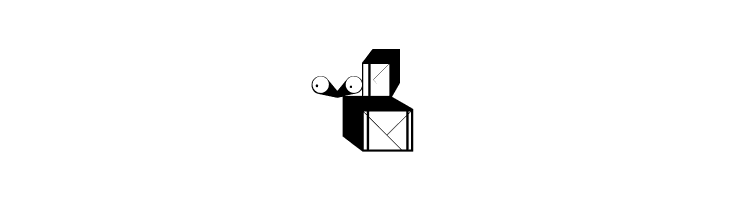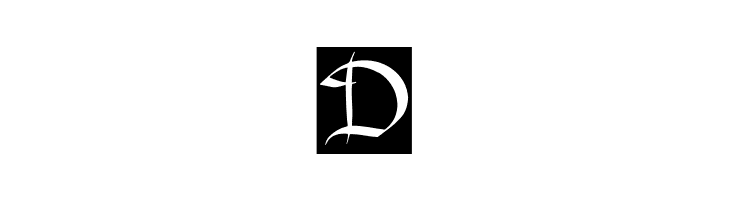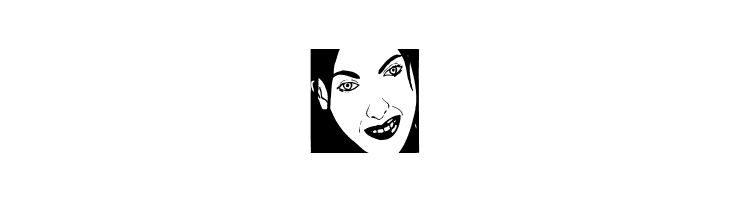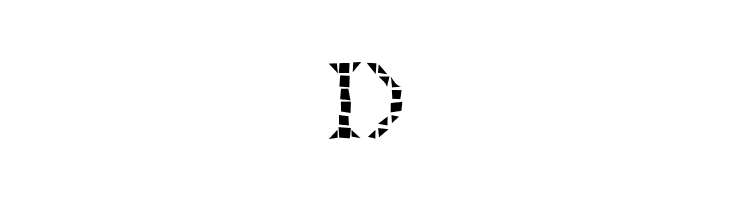
• BastardaMajuskel1300
A Gothic-style font with sharp, angular lines and ornate detailing.
• BatzBatz
A decorative font with playful symbols and bold arrows.
• BauhausReminisce
A bold, geometric, and abstract font with a modern artistic flair.
• Bayreuther-BlaXXL
A bold, dramatic blackletter font with intricate, ornate letterforms.
• BD Beans
• BDChantilly
• BDTimesNewDigitalBad
• Beardfaces
A whimsical, decorative font with playful, abstract beard-faced characters.
• BeautyFaces
A display font composed of illustrated human faces for each character.
• Bebas Regular
A bold, modern sans-serif font with a condensed and geometric style.